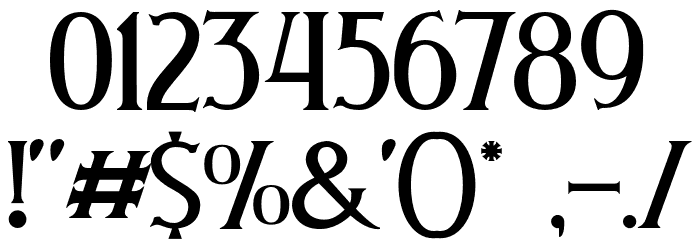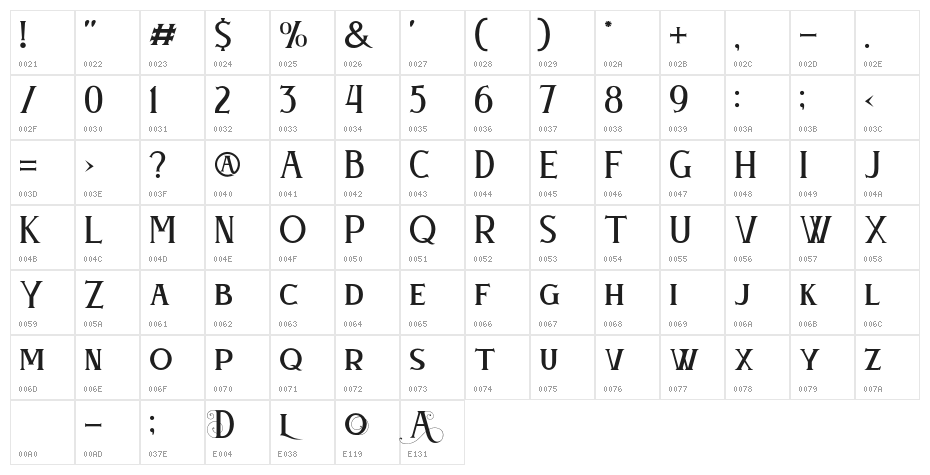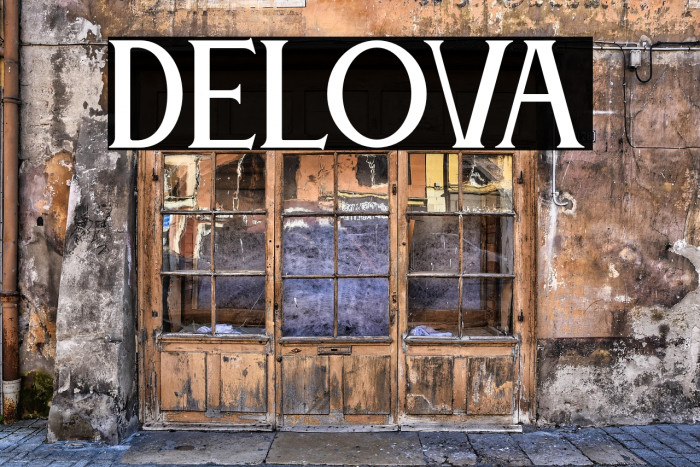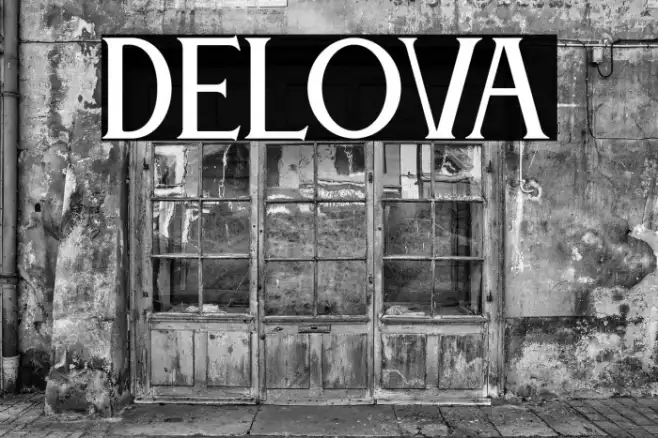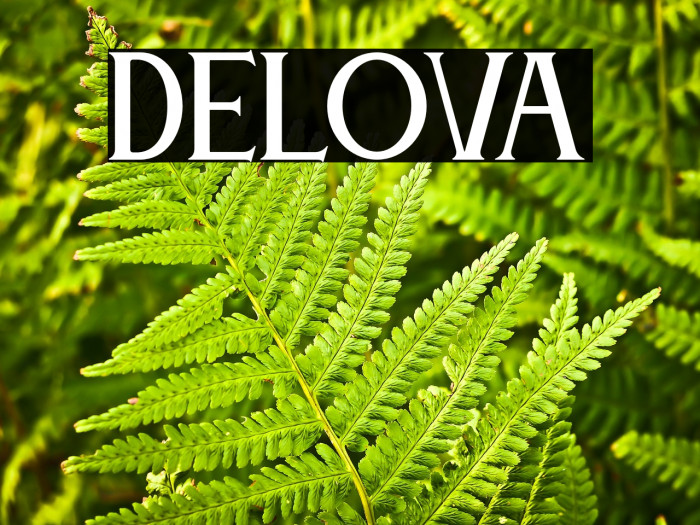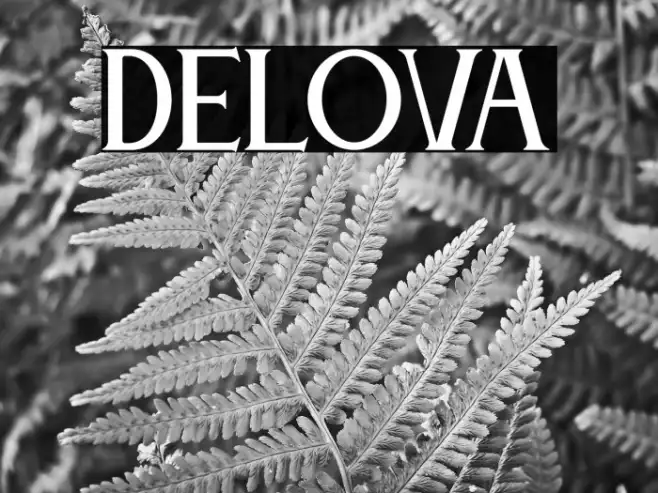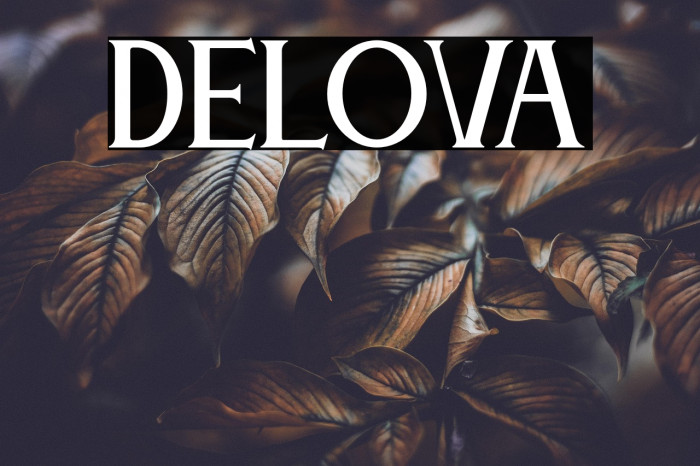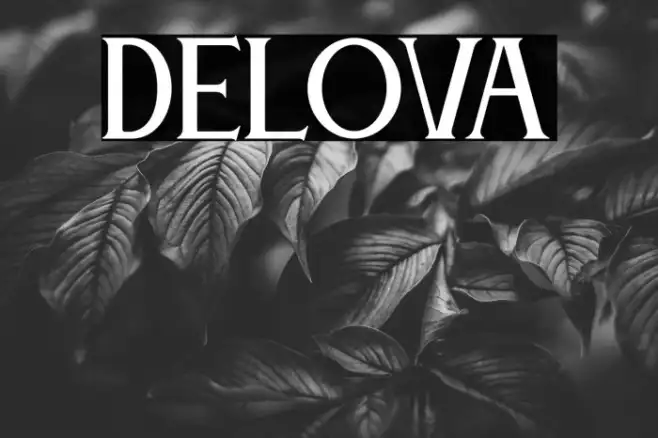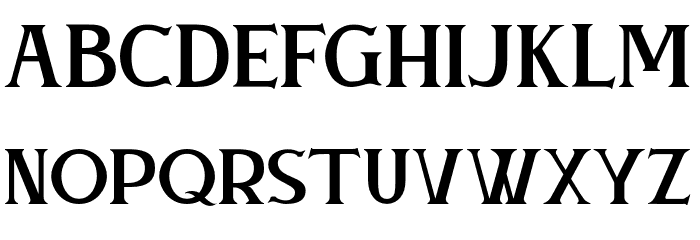
DELOVA Font
DELOVA Description
This font features a classic serif style with elegant, sharp serifs that give it a timeless and sophisticated appearance. The uppercase letters are bold and commanding, while the lowercase letters maintain a consistent style that complements the overall design. The numerals are distinct and clear, ensuring readability. Special characters are well-integrated, maintaining the font's cohesive look. The font's design is suitable for projects that require a touch of elegance and formality.
| Use Case | Headlines, Logos, Editorial design |
| Proposed Projects | Ideal for book covers, formal invitations, branding, and editorial design. |